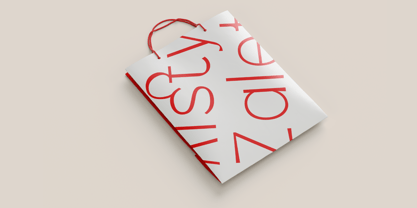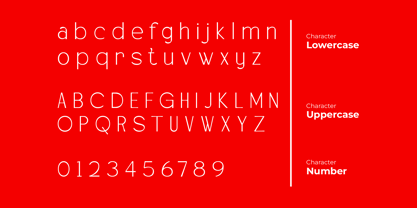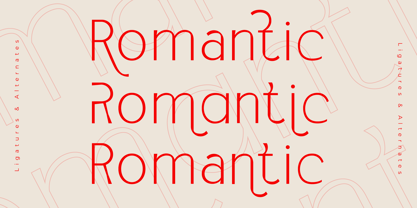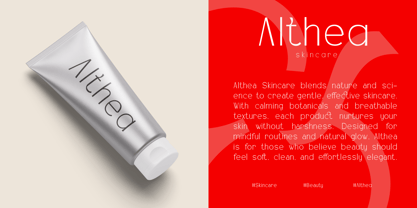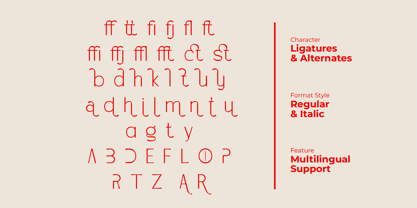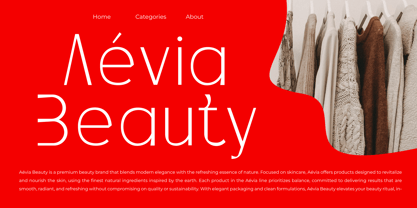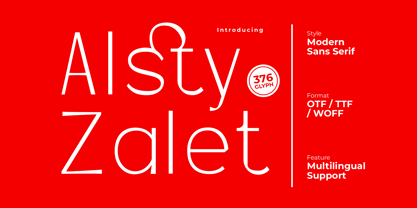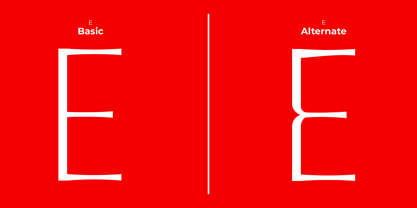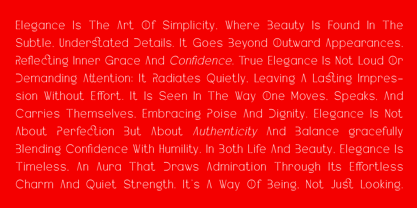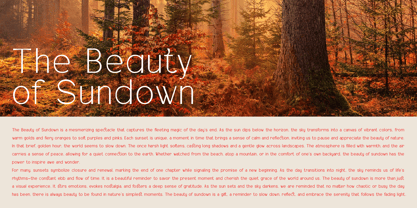
Alsty Zalet
# 🔷 Alsty Zalet
Category: Modern Sans Serif Typeface
## 💡 Where Clean Form Meets Confident Style
Looking for a typeface that balances modern simplicity and standout professionalism?
Meet Alsty Zalet, a modern sans serif designed with clarity, proportion, and timeless appeal. With its geometric base and subtle humanist touches, this font adds precision and polish — perfect for branding, editorial design, UI/UX, and more.
## ✨ Key Features
* 🧭 Clean, modern strokes with refined geometric structure
* 🔡 Multiple weights for flexible hierarchy and tone
* 🎨 Subtle stylistic alternates and functional ligatures
* 🌐 Multilingual support (Latin Extended with smart accents)
* 📱 Fully optimized for digital interfaces and print usage
## 🎯 Perfect For
* 🧾 Startups, tech brands, and modern corporate identities
* 🖥️ Web/app UI, dashboards, and mobile-friendly typography
* 📕 Editorial layouts, clean magazines, and brochures
* 📸 Minimalist social posts and clean product packaging
* 🎞️ Film subtitles, infographics, and branded visuals
> Alsty Zalet delivers modern clarity and confident elegance — designed to elevate communication through simplicity and strength.